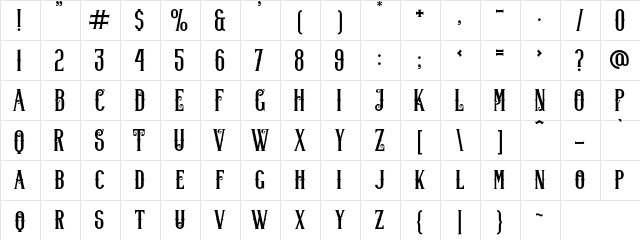
Lifer Regular
| Foundry | Twicolabs Typefoundry |
| Designer | Twicolabs Typefoundry |
Design Context for Lifer Typeface
Lifer is a composed and adaptable typeface that performs quietly and consistently across a wide range of design contexts.